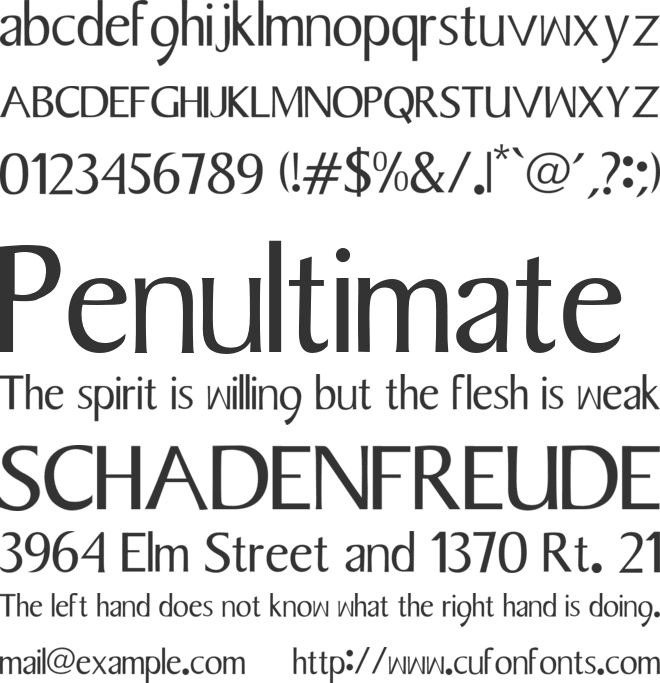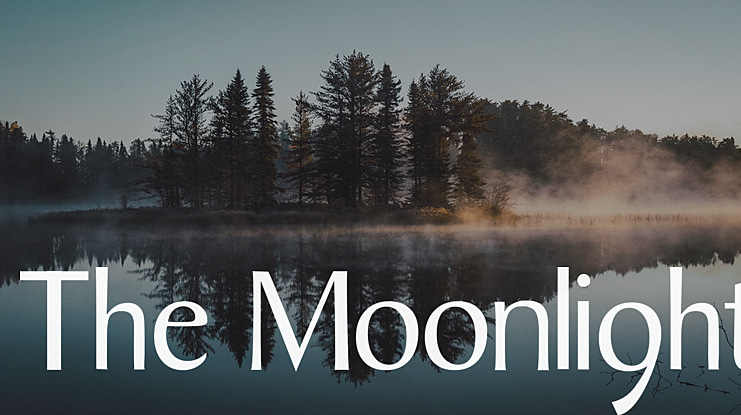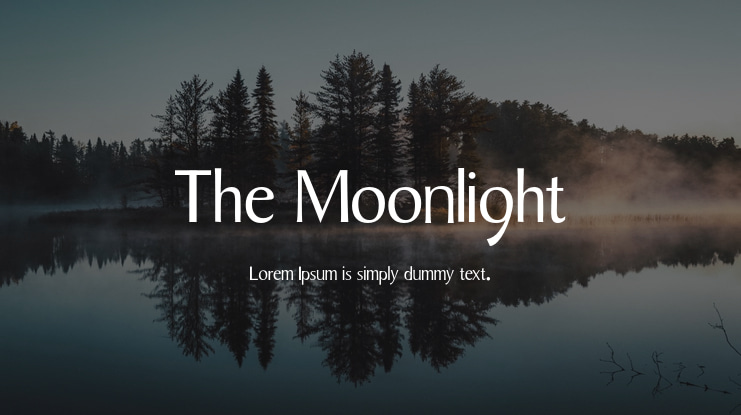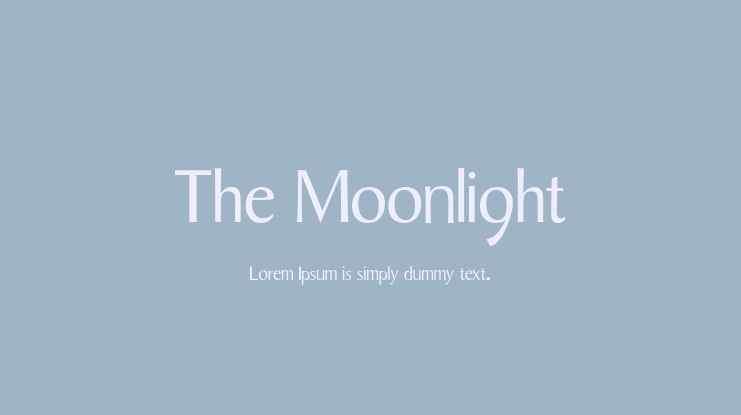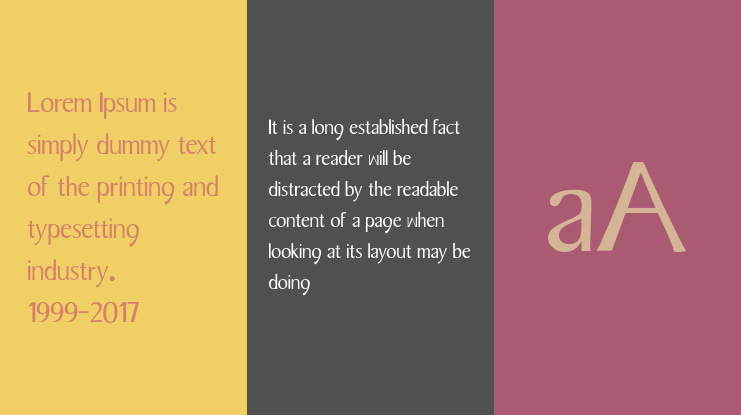
The Moonlight Font
Introducing our new release, The Moonlight Elegant Handwritten Font. This typeset is perfect for brand logo, invitations, greeting card, or even any kind of project. With multilingual feature and style variations, this typeface would further enhance the aestethical aspect of your work.Visit our website :https://displaytypefont.com/product/the-moonlight/